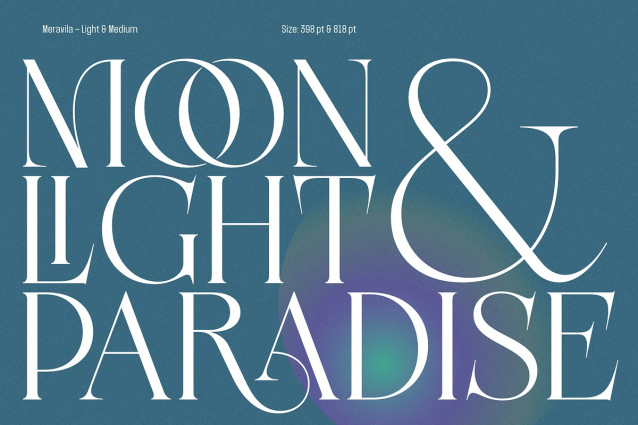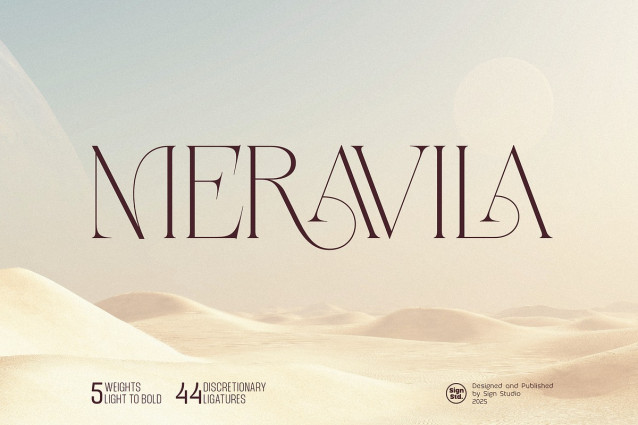
Meravila Font
Meravila Font is a modern serif typeface that brings together classic elegance and contemporary refinement. Designed to convey beauty, clarity, and balance, Meravila stands out with its medium contrast strokes and a collection of elegant ligatures that add personality and flair to your typography.
With five carefully crafted weights—from Light to Bold—Meravila is highly versatile, ideal for everything from editorial design, branding, and logos to high-end packaging and digital content. Its clean structure and stylish character shapes create a harmonious reading experience, making it both functional and visually captivating.